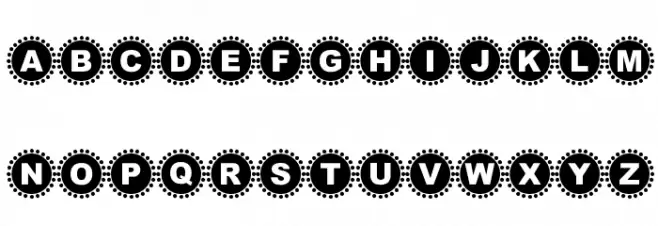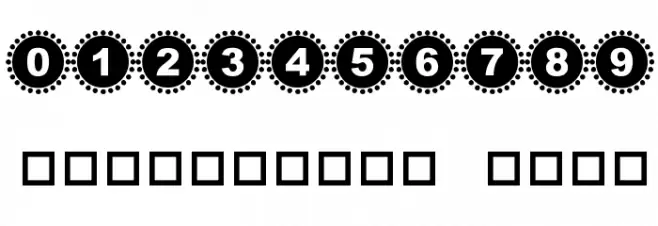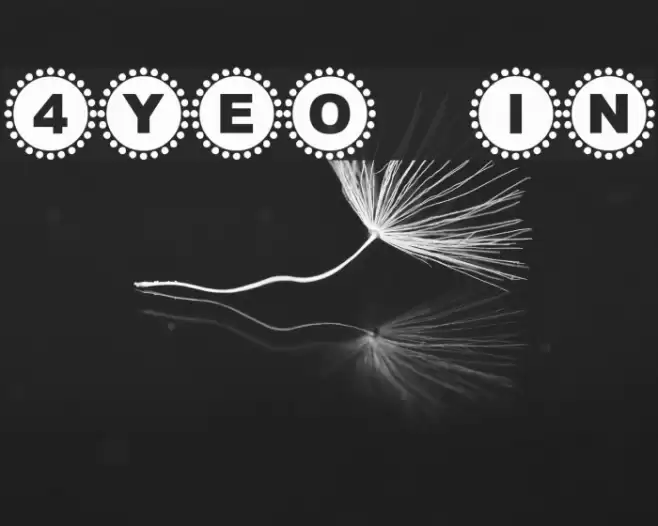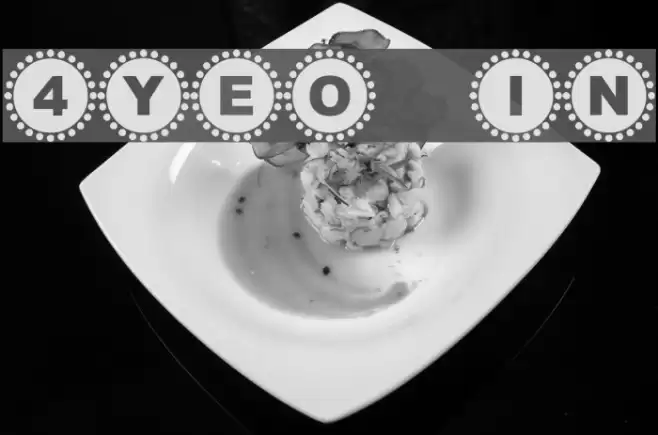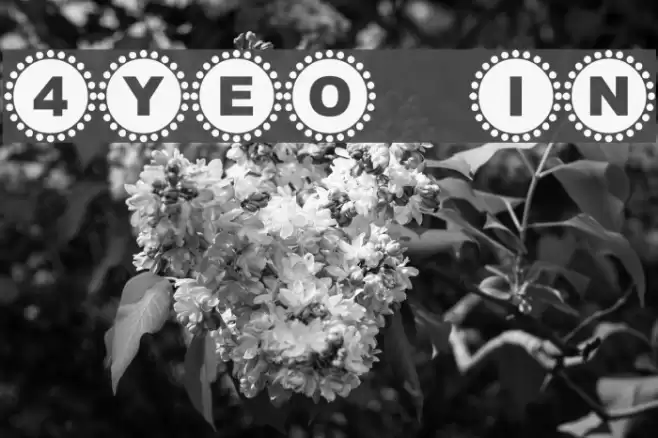
4YEO IN
This font features uppercase letters and numbers encased in bold, circular shapes with a dotted border, creating a playful and decorative appearance. The characters are evenly spaced within these circles, providing a uniform and balanced look. The design is eye-catching and suitable for creative projects that require a touch of whimsy and fun. The boldness of the characters ensures readability, while the dotted border adds a unique decorative element. This style is particularly effective for projects that aim to stand out with a distinctive and engaging visual appeal.
A playful, decorative font with bold letters and numbers encased in dotted circles.
- Proposed Projects: Ideal for children's books, playful branding, party invitations, and creative posters.
- Overall Style: Decorative
- Use Case: Logos, Headlines, Posters